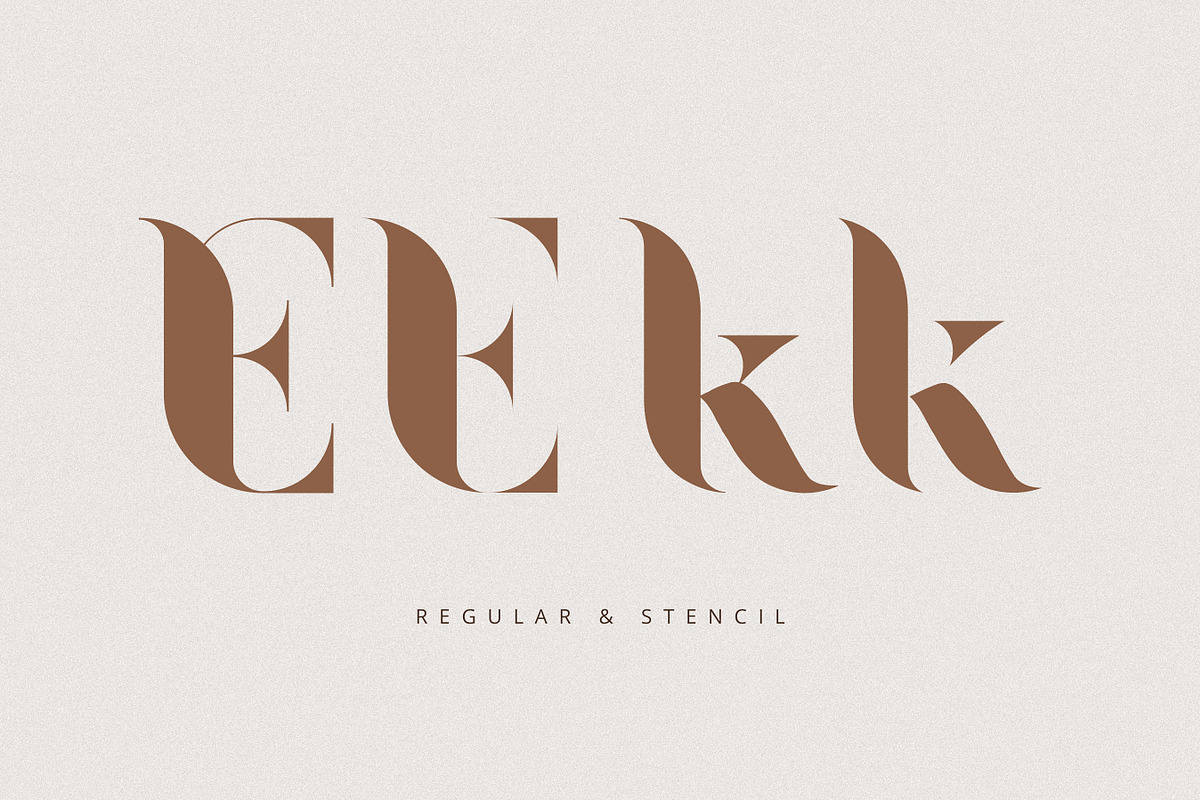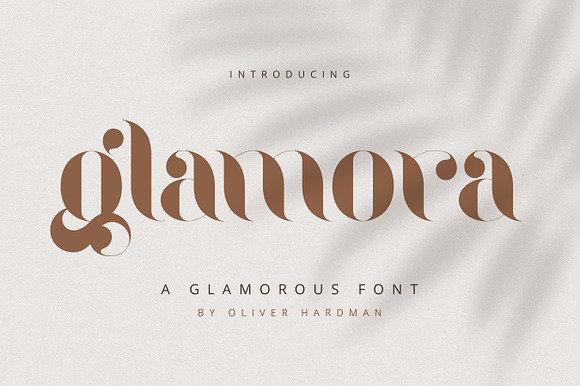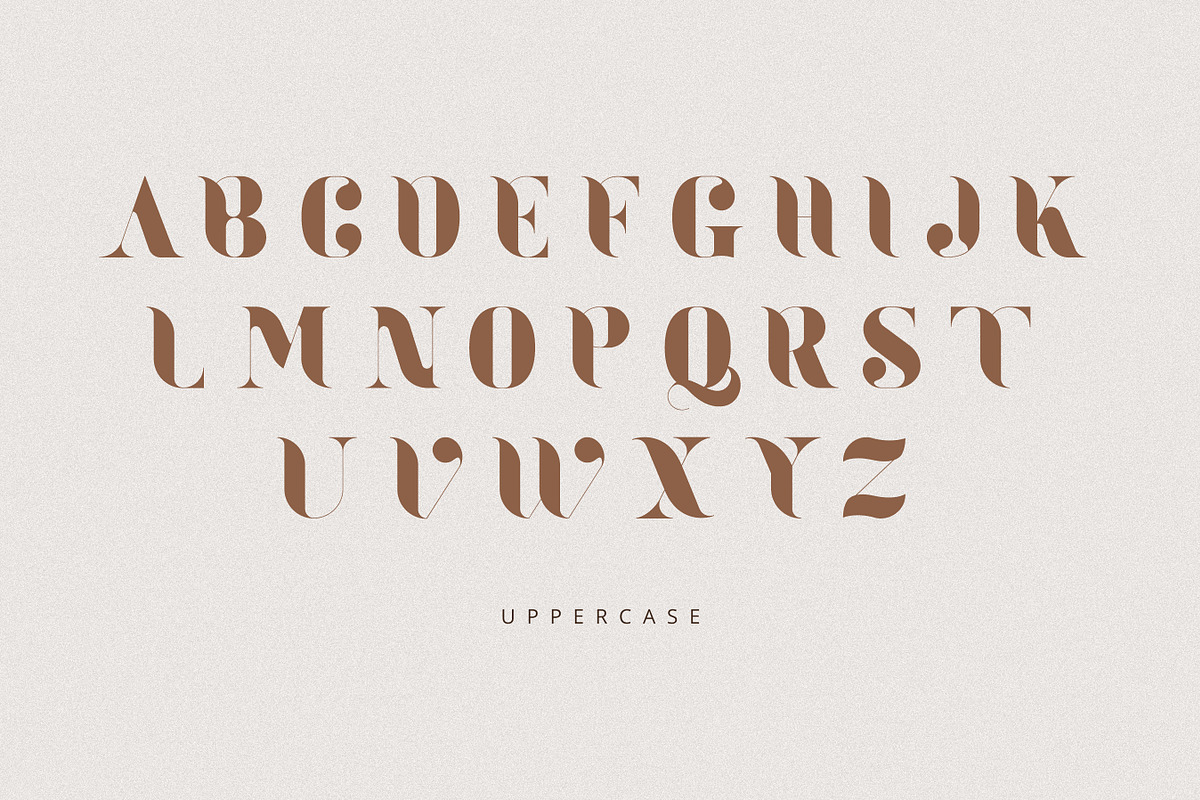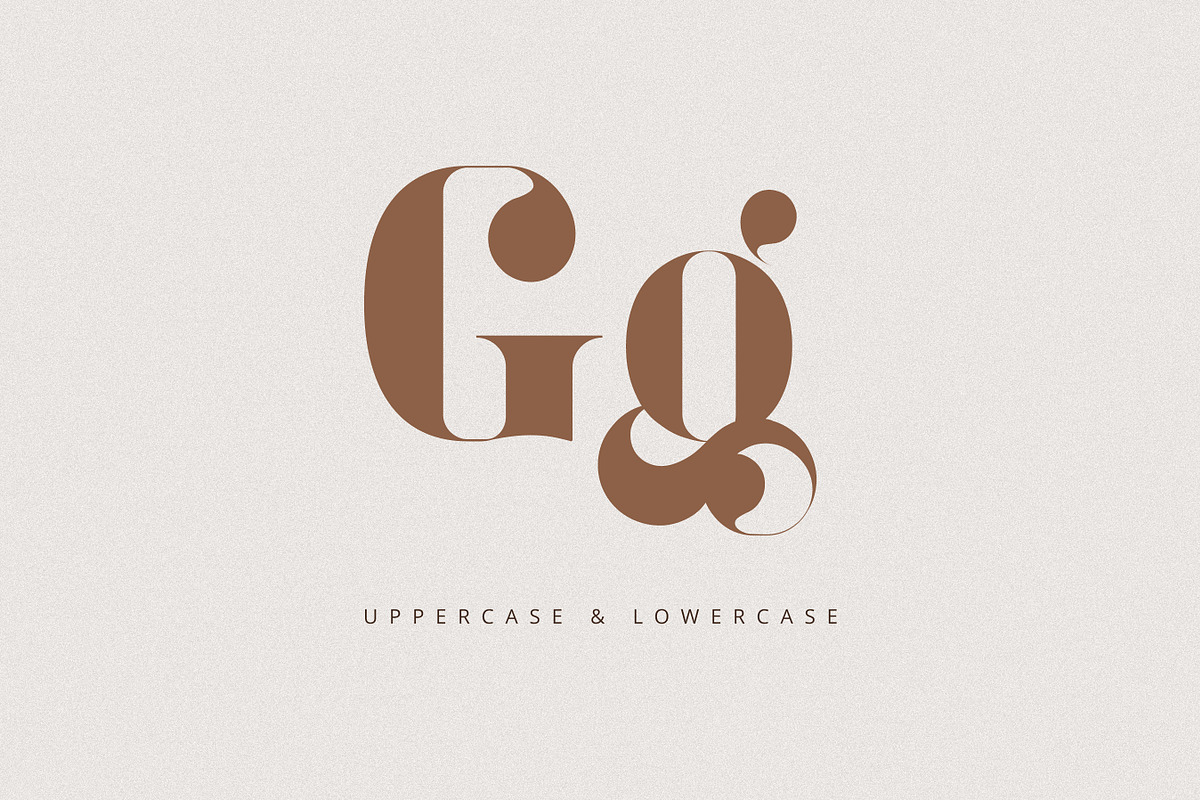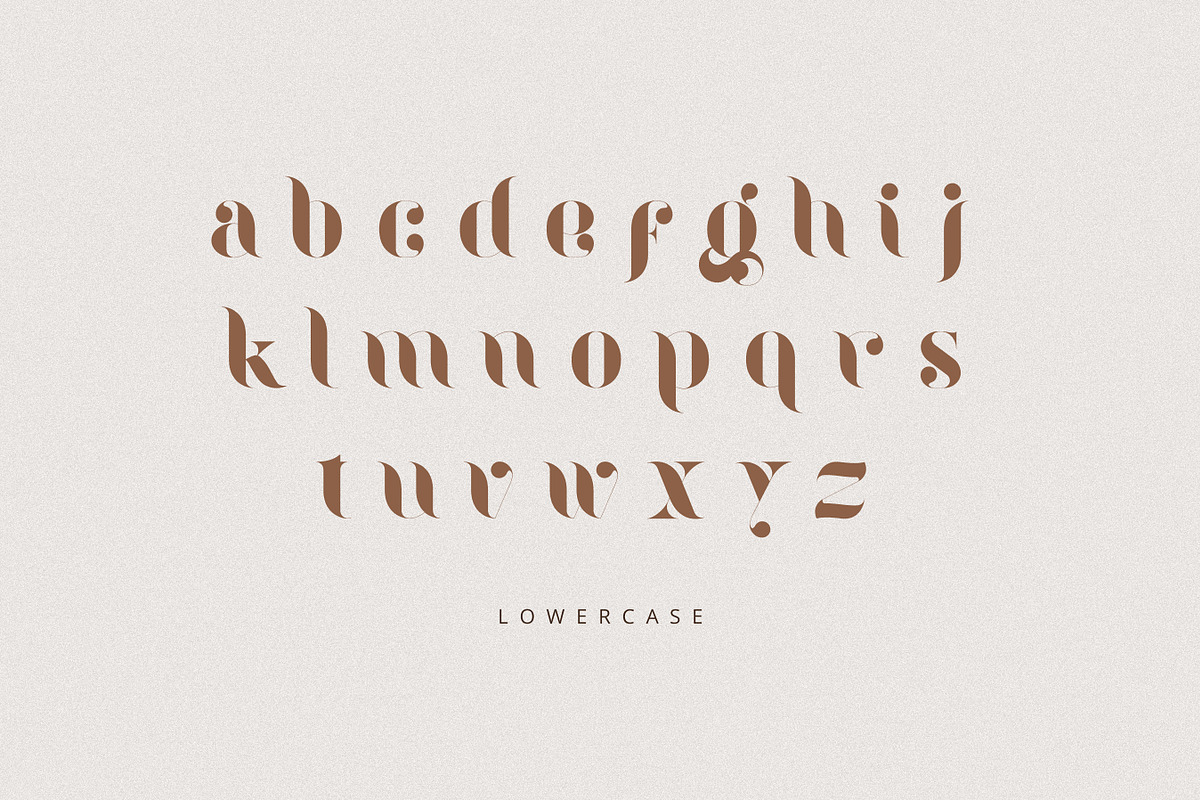
Glamora Font
Glamora is a new working serif typeface inspired by classical publication headlines and title pages published in the art deco era. The Glamora font offers two styles in both stencil and regular options, both including upper and lowercase letters. Perfect for print and web design, Glamora works best for blog titles, logos, publications, posters, and invitations.
- The Glamora font offers two styles in both stencil and regular options, both including upper and lowercase letters.
- Glamora Regular
- Glamora Stencil